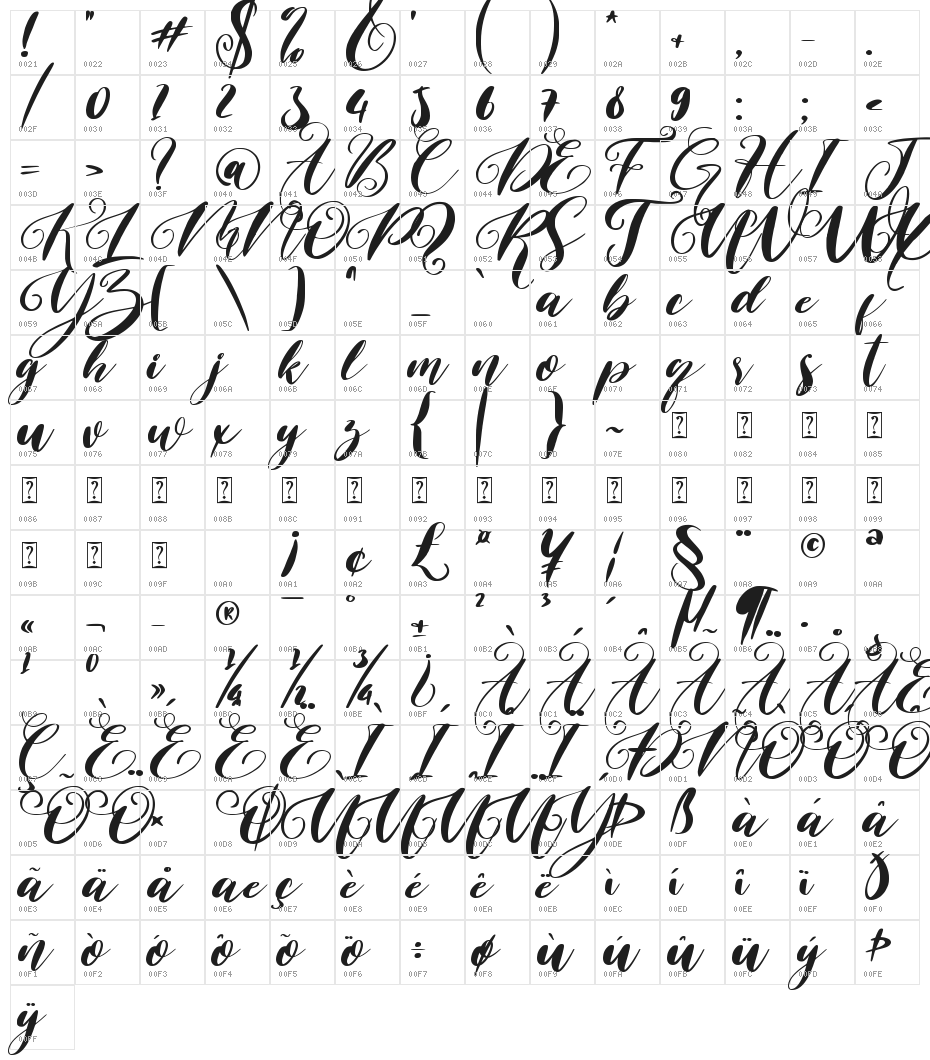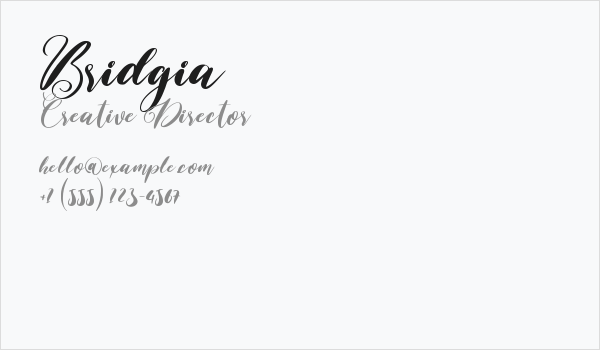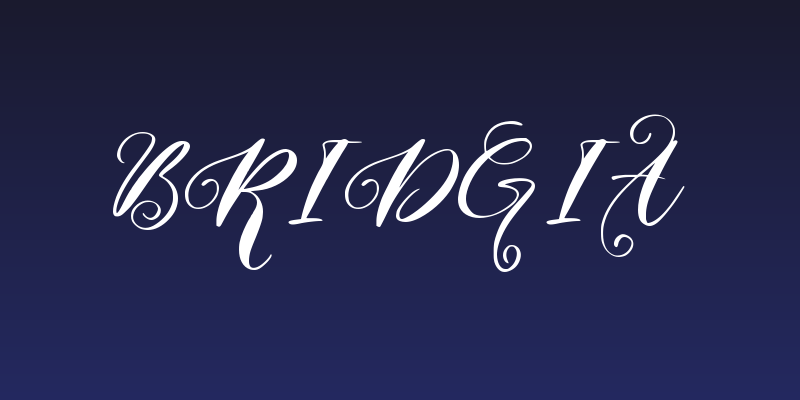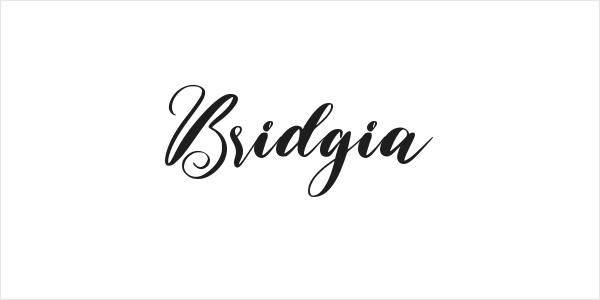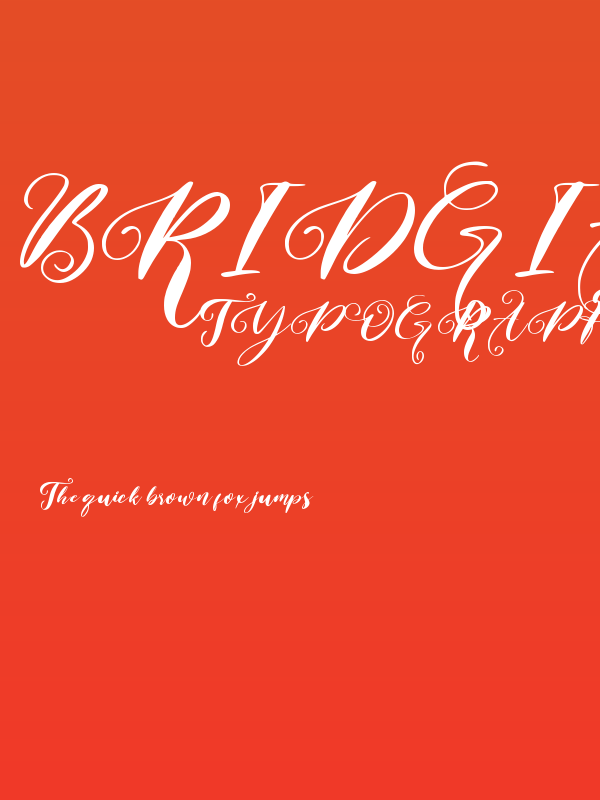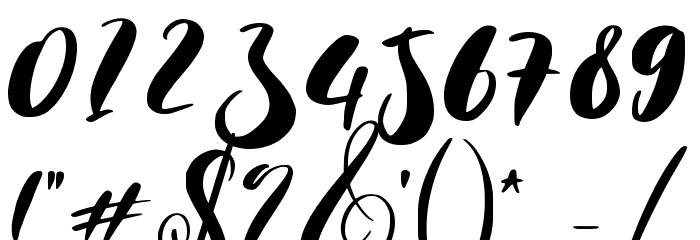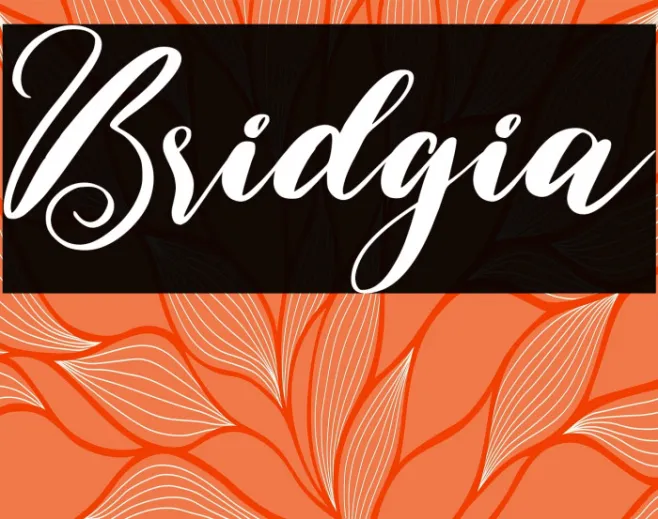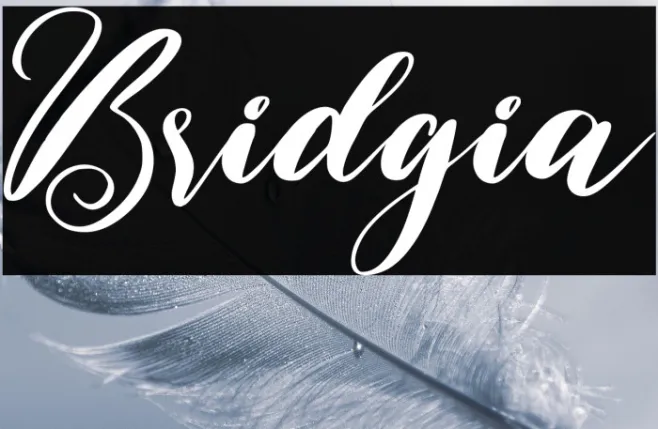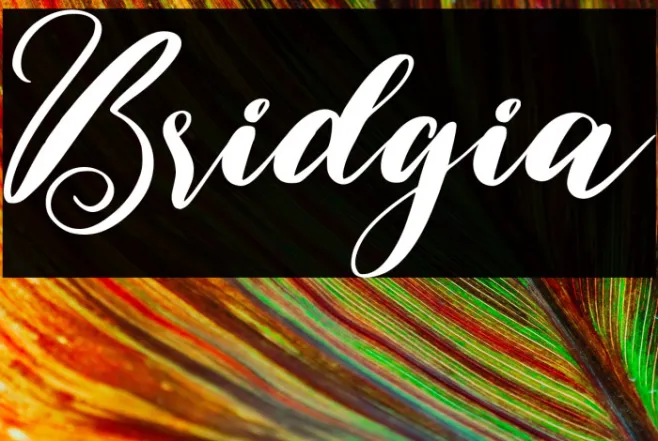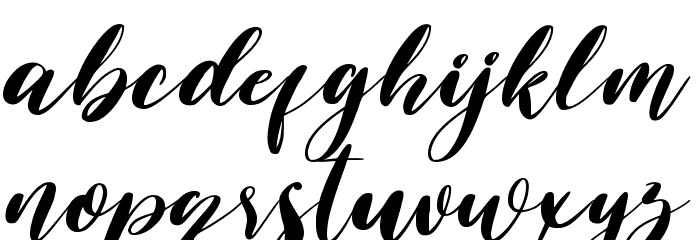
Bridgia Font
Bridgia Description
This font features an elegant and flowing script style, characterized by its intricate swirls and loops. The uppercase letters are adorned with decorative flourishes, giving them a sophisticated and artistic appearance. The lowercase letters maintain a smooth and connected cursive form, enhancing readability while retaining a stylish flair. Numerals are bold and slightly slanted, complementing the overall script design. The special characters are crafted with the same attention to detail, ensuring consistency across the font. This typeface exudes a sense of elegance and creativity, making it suitable for a variety of design projects.
| Proposed Projects | Ideal for wedding invitations, branding, greeting cards, and elegant packaging designs. |